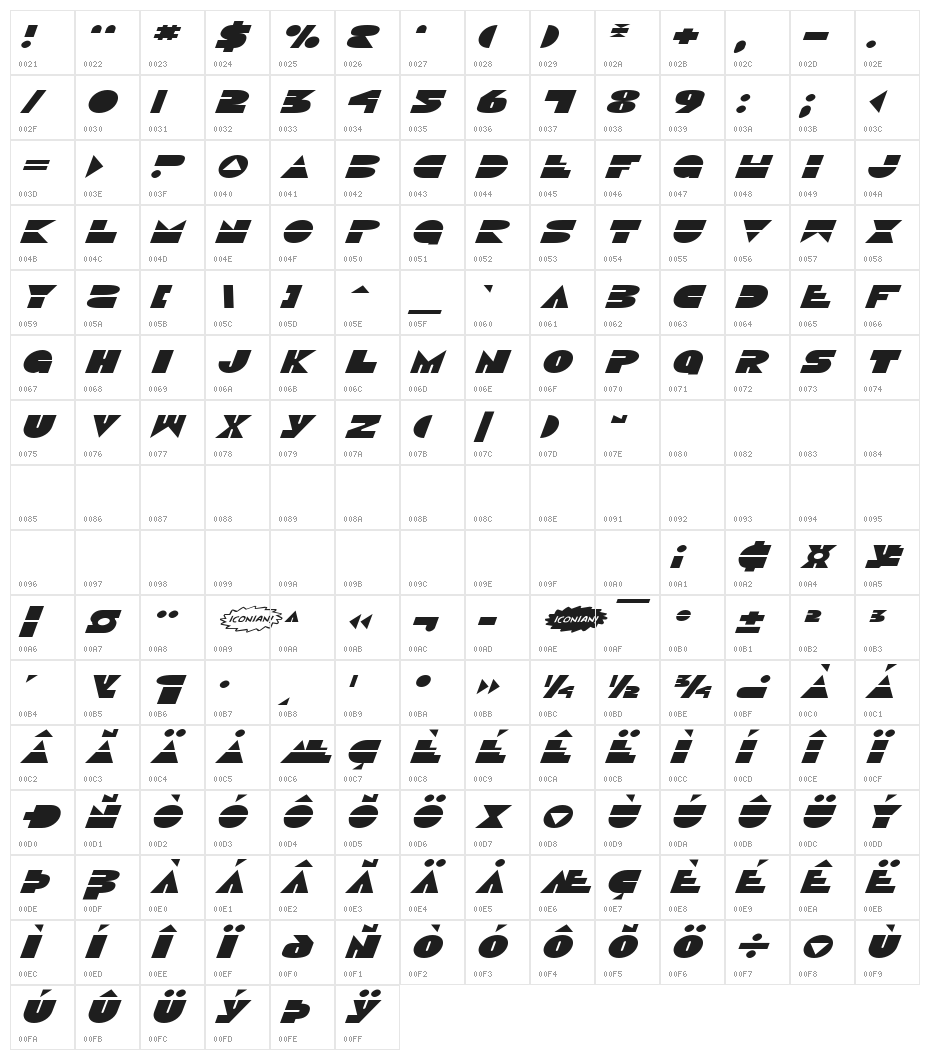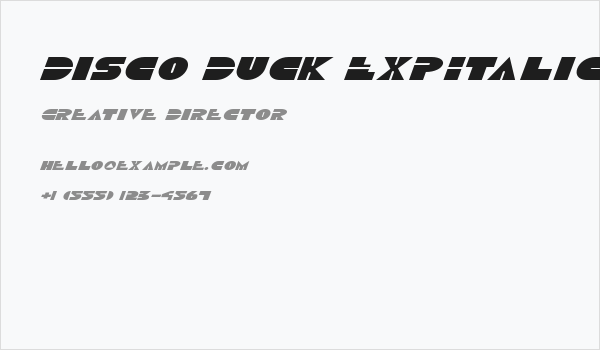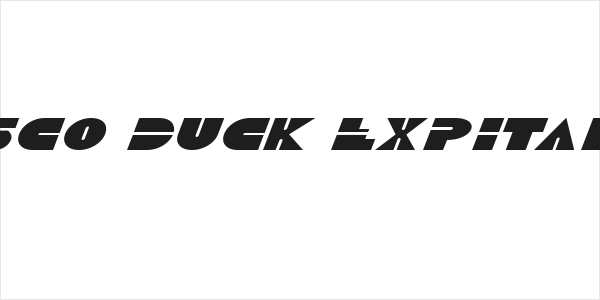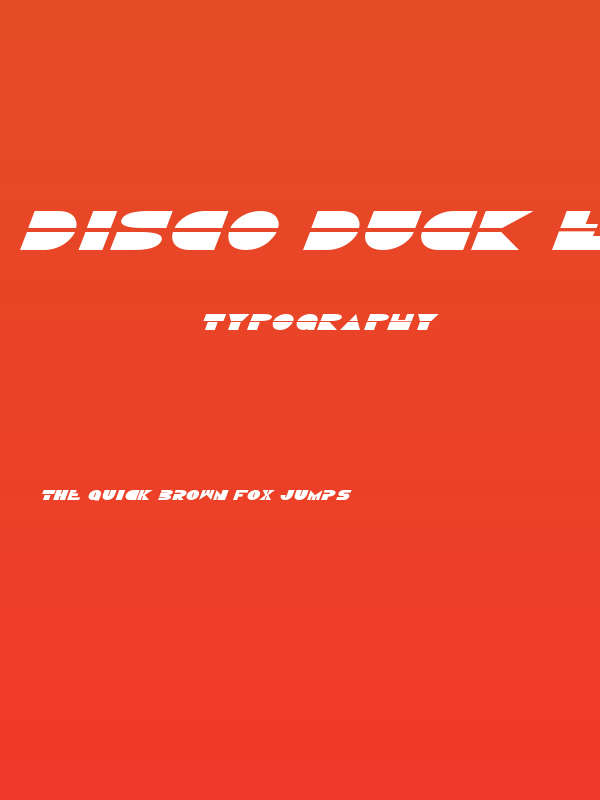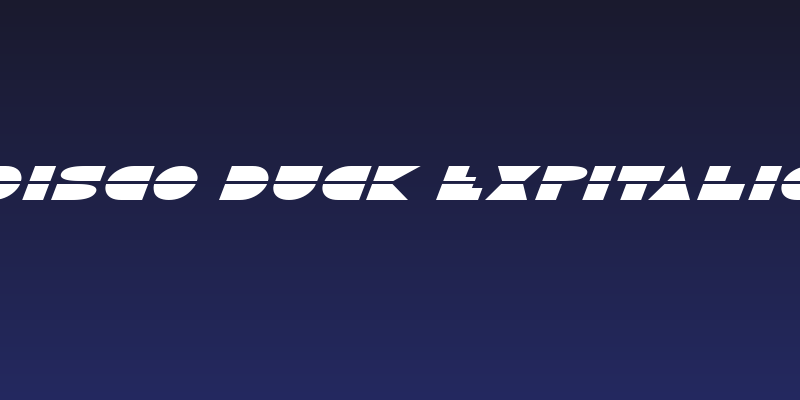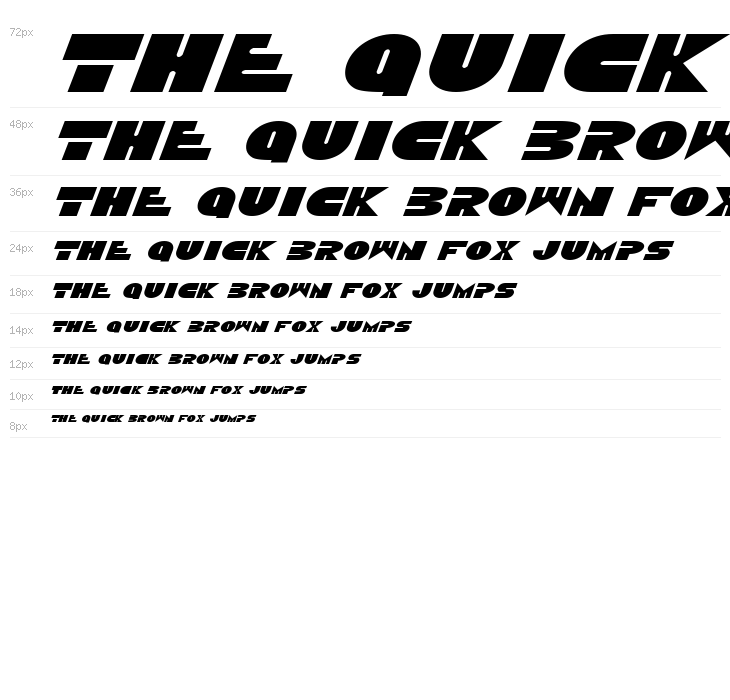
Disco Duck ExpItalic Font
Disco Duck ExpItalic Description
This font features a bold, dynamic style with a distinct italic slant, giving it a sense of motion and energy. The characters are constructed with geometric shapes, creating a futuristic and playful appearance. The uppercase and lowercase letters maintain a consistent style, with sharp angles and a unique cut-out effect that adds to its visual interest. The numbers and special characters follow the same design principles, ensuring uniformity across all glyphs. This font is ideal for projects that require a modern, edgy look.